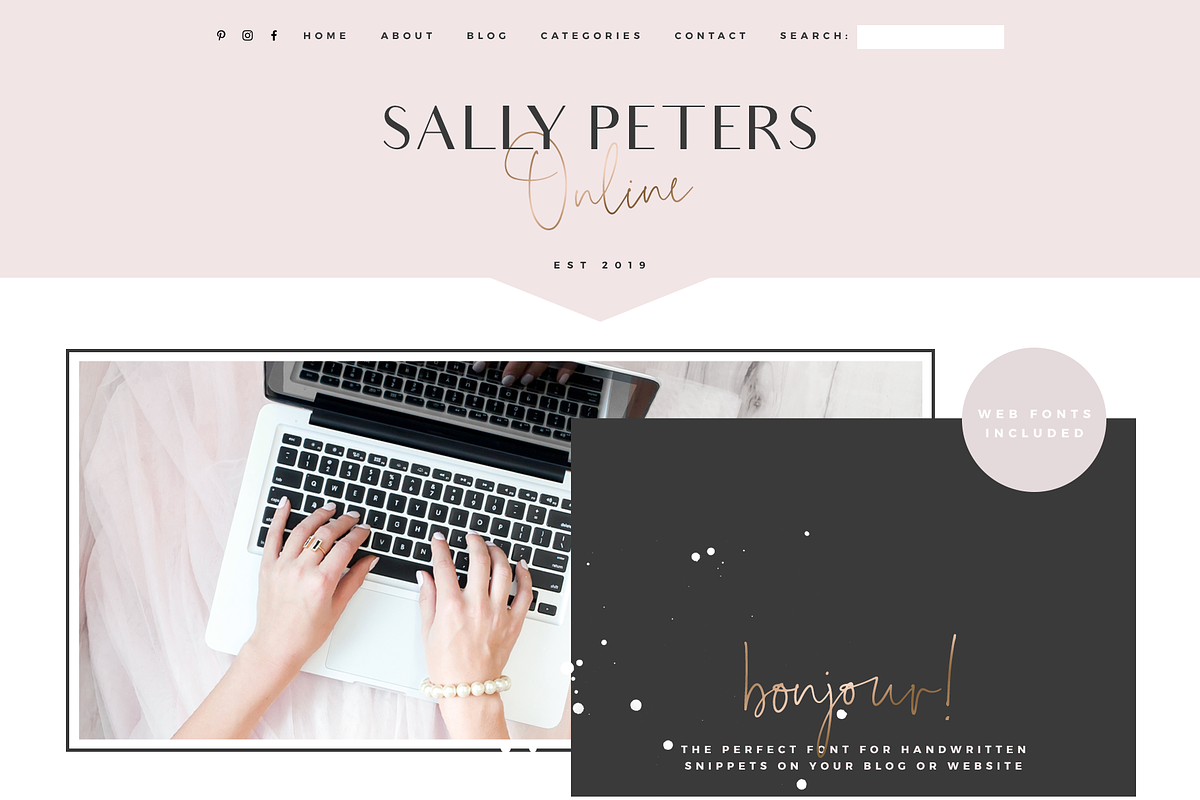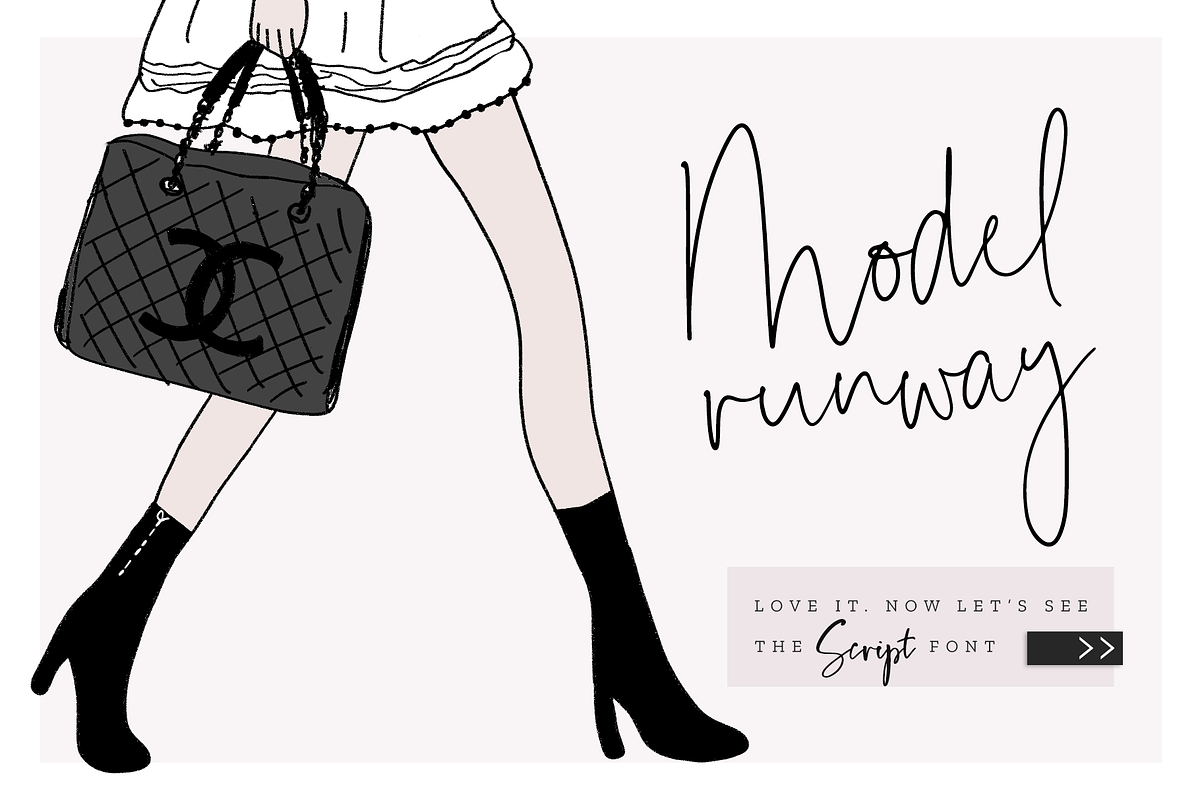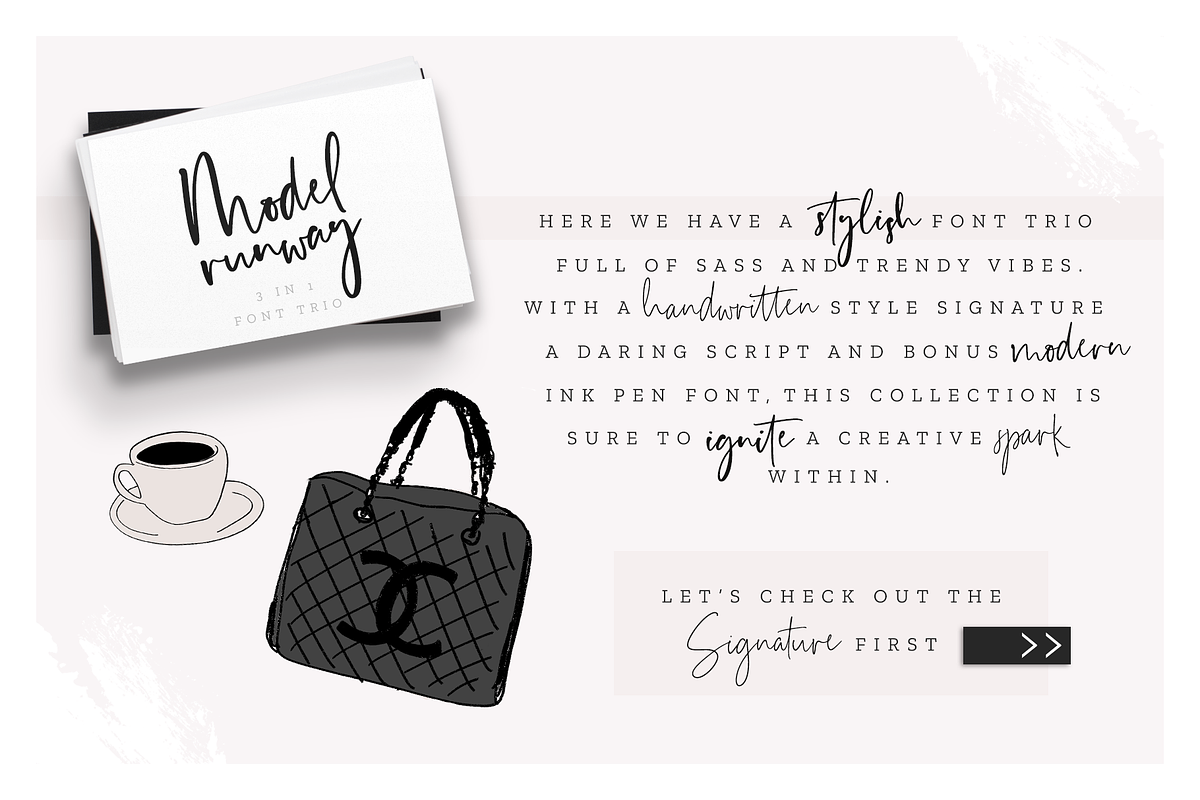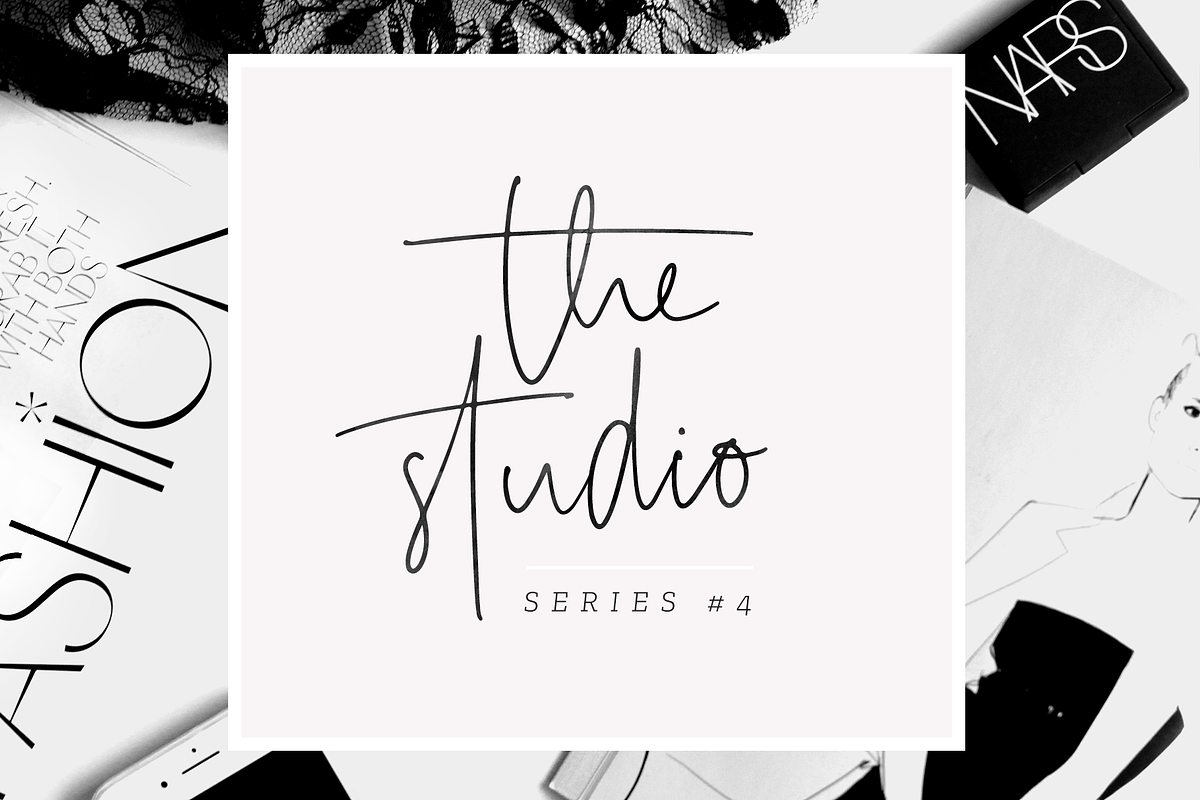
Model Runway Fonts + BONUS Extras
Introducing Model Runway, a pack of THREE super stylish fonts including a handwritten signature, modern ink and bold brush script that are all sure to make a statement.
Inspired by scribbled notes alongside fashion pages, illustrations, artwork and collages, all three fonts encompass a hint of sass and ultra stylish vibes that will be sure to ignite a creative spark within.
Model Runway Signature
aa ab at att bb bl cc ch ct ck dd ee es ev ett elt eet ess et ft ff fl gg gh hh ii it itt ist ith jj kk ll lt mm nn nt oo of off oft ou on ol out oll ont outh ott ot pp ph rr rt ss st tt the uu utt vv yl zz Sh St Sl
All three fonts mix perfectly with Zilla Slab and Montserrat Bold